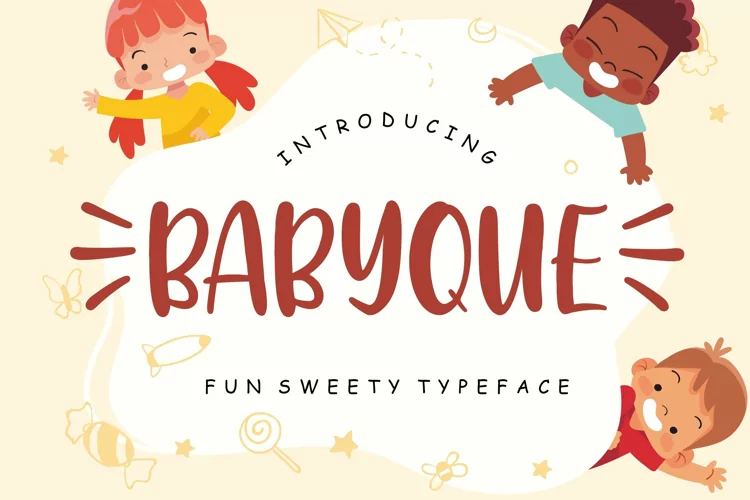
Babyque Fun Sweety Typeface
Babyque
Babyque a brush fun sweety display font which perfect for children and kindergarten occasion.
Babyque is perfect for branding projects, logo, wedding designs, social media posts, advertisements, product packaging, product designs, label, photography, watermark, invitation, stationery and any projects that need handwriting taste.